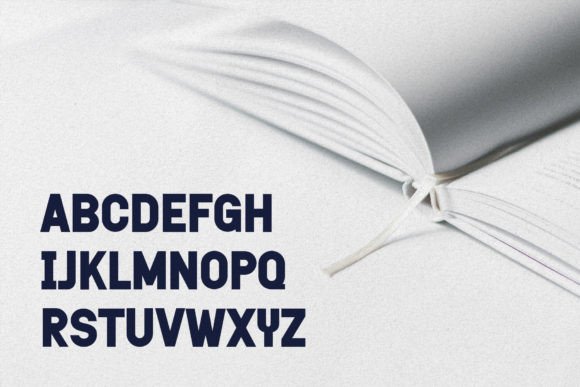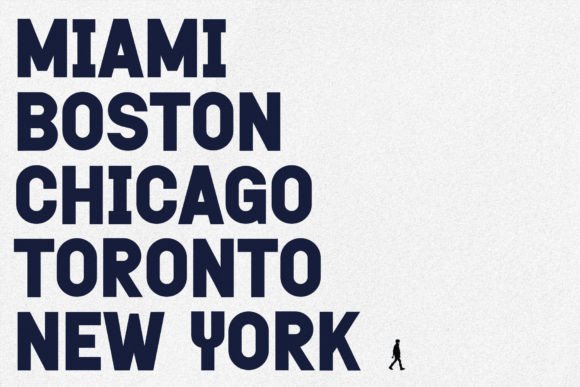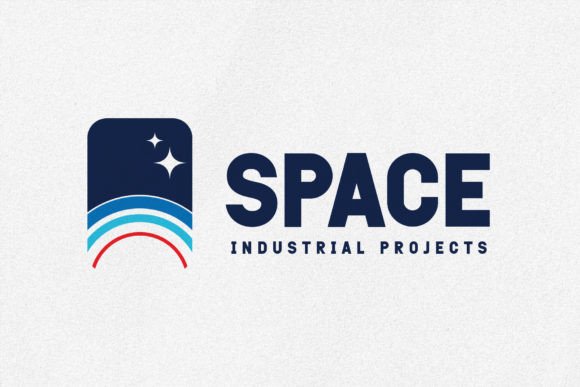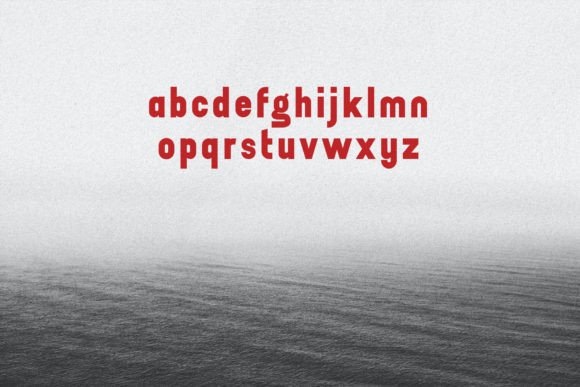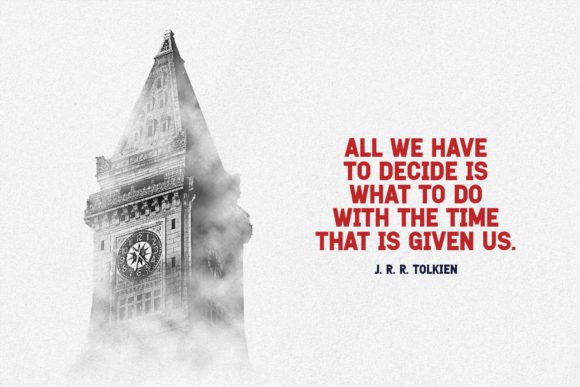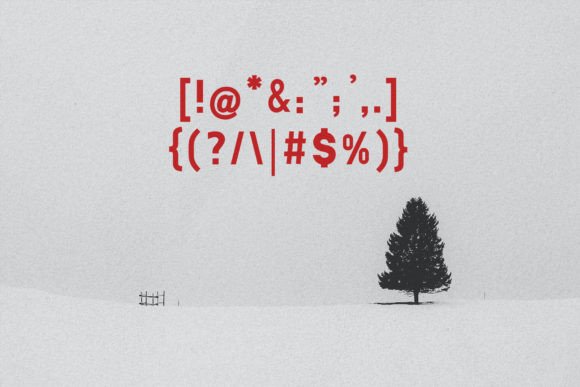
Introduction to Mirable Font Font
Fonts play a crucial role in design, and the Mirable Font font is a typeface that brings both character and versatility to any project. Whether you’re working on a branding project, a website, or a print design, the Mirable Font font offers a unique style that can elevate your work.
Mirable is a retrospective sans display typeface inspired by 1980s and 1990s posters and graphic design trends.
An incredibly versatile typeface for grabbing attention or making a statement You can use it for things like music posters, album covers, banners, social media posts, YouTube thumbnails, artistic projects, book covers, printables, and much more.
Key Features of Mirable Font Font
Why Choose Mirable Font Font?
The Mirable Font font is more than just a typeface – it’s a design tool that helps you communicate your message with style and clarity. Its unique character set and versatile design make it suitable for a wide range of applications, from elegant invitations to bold headlines.
With its carefully crafted letterforms and balanced proportions, the Mirable Font font ensures readability and visual appeal across all mediums.
What makes Mirable Font font special?
The Mirable Font font stands out with its unique design, exceptional readability, and versatility across various design applications.